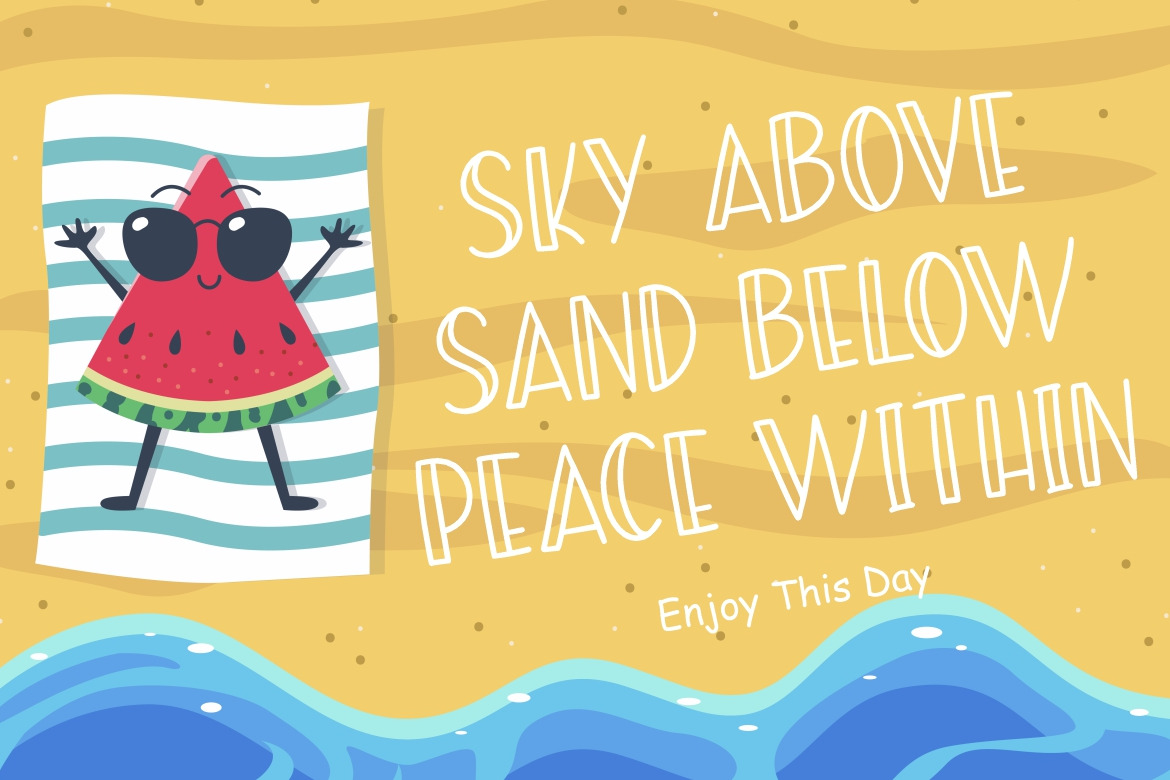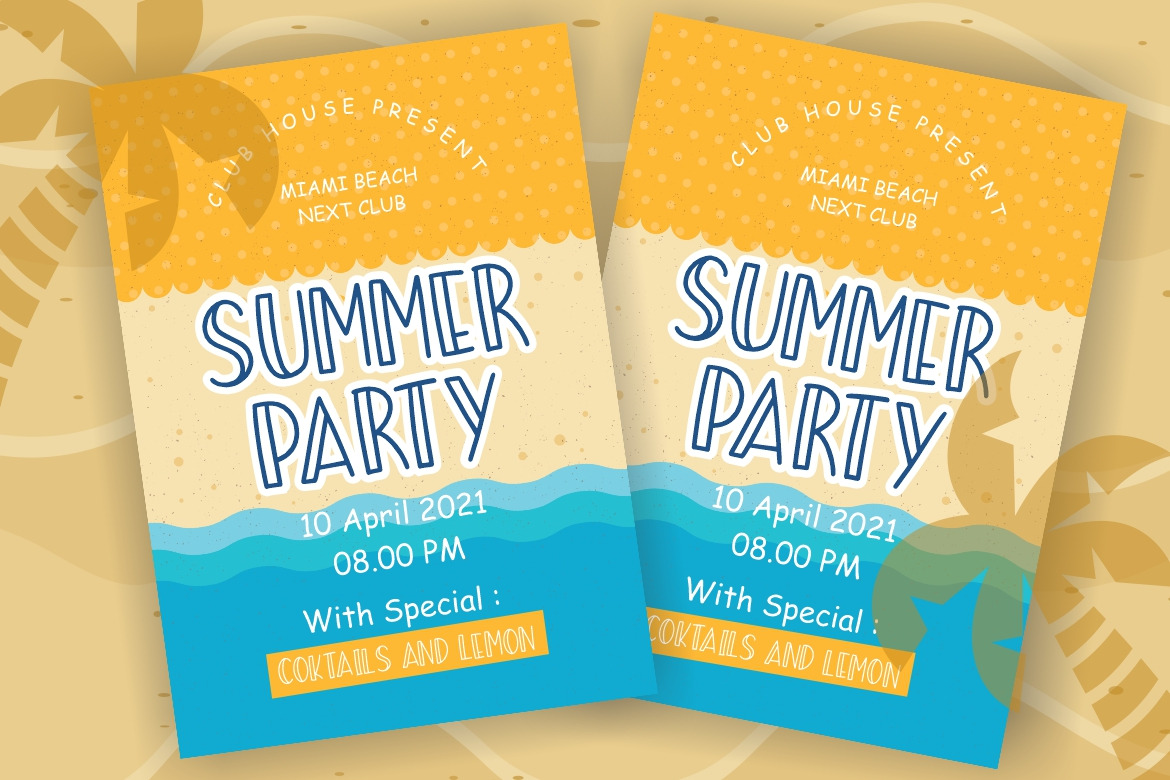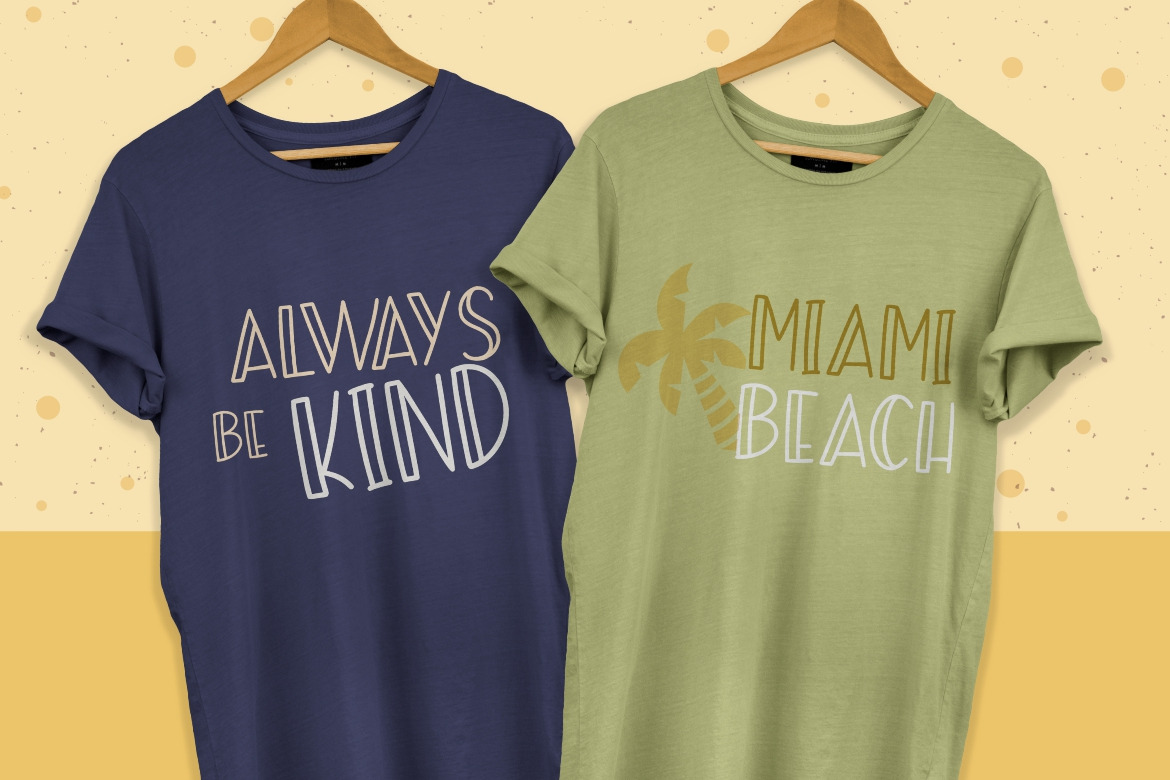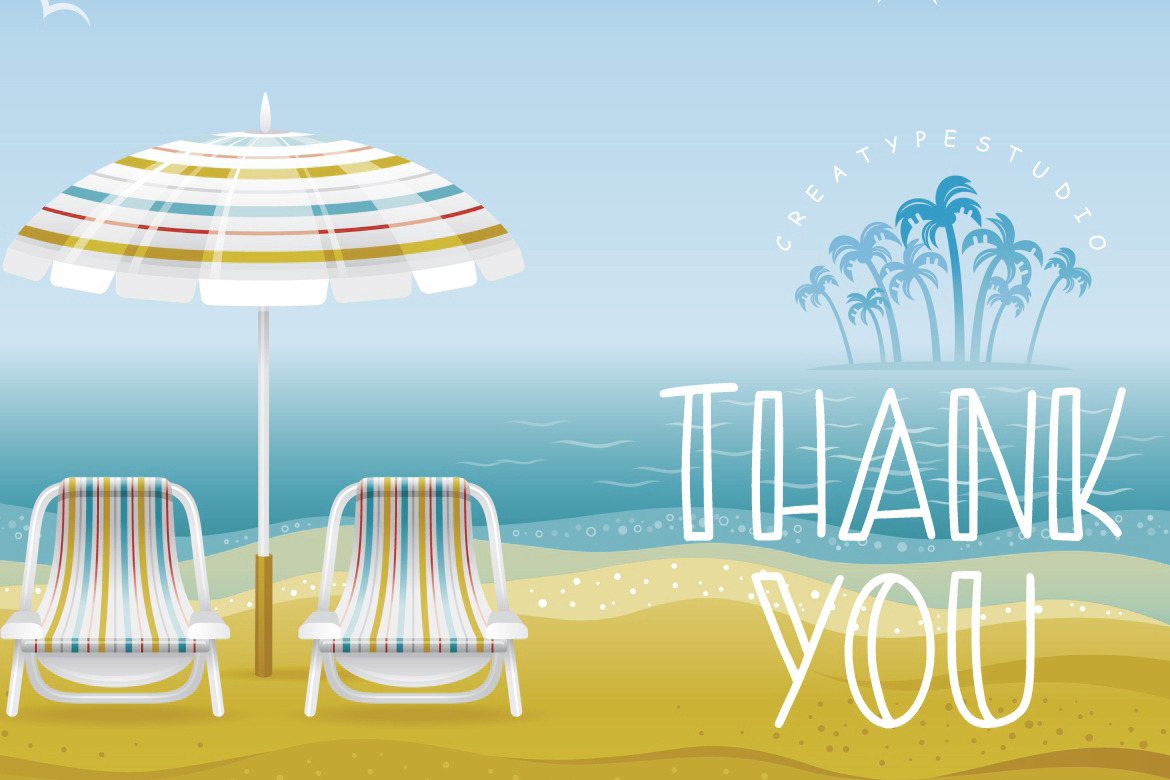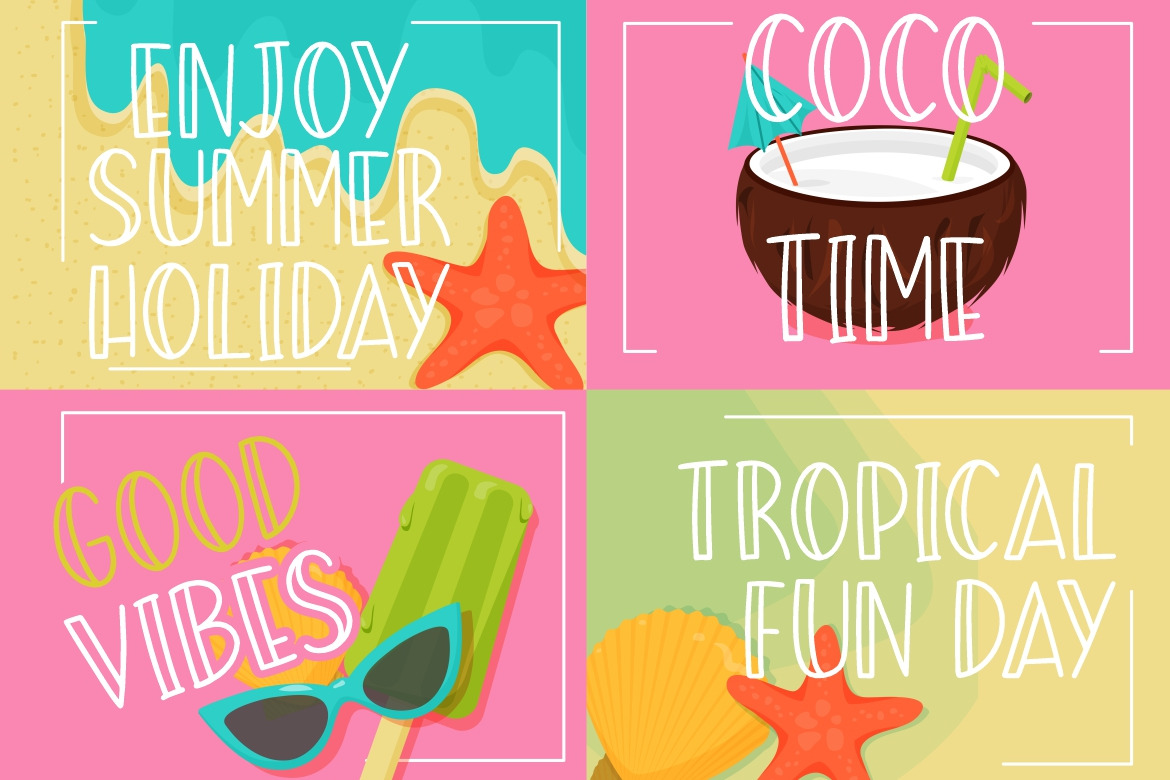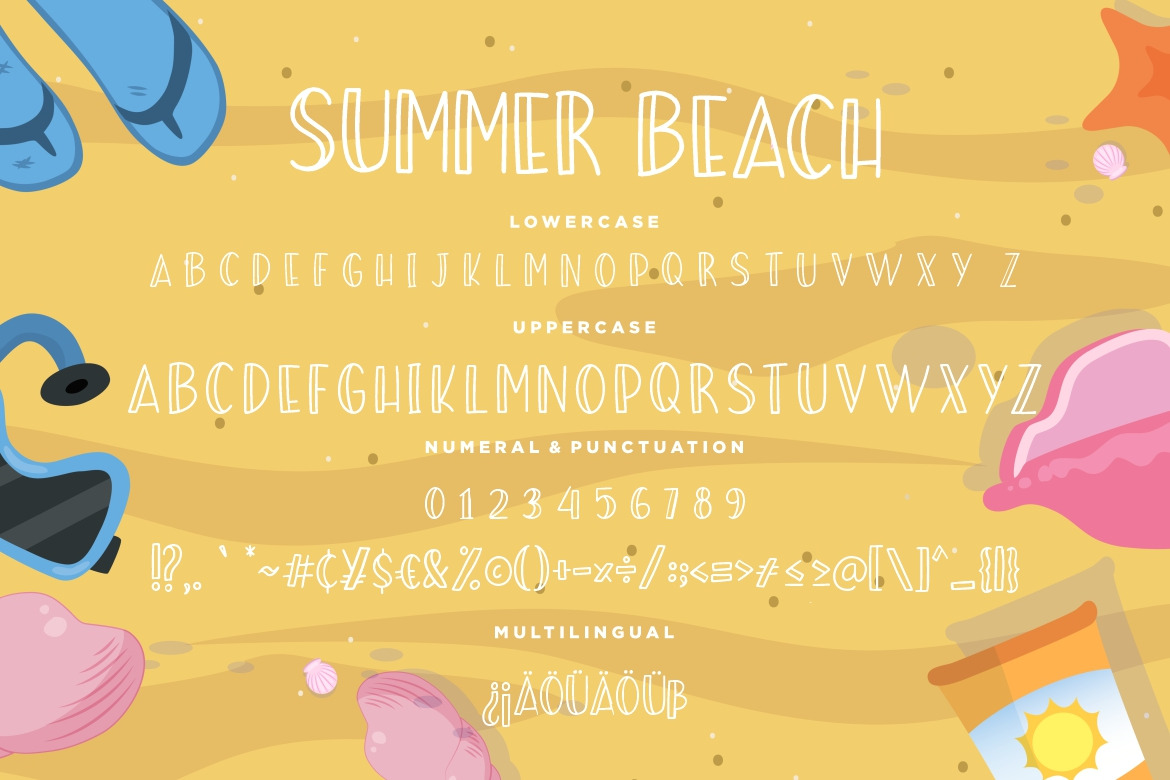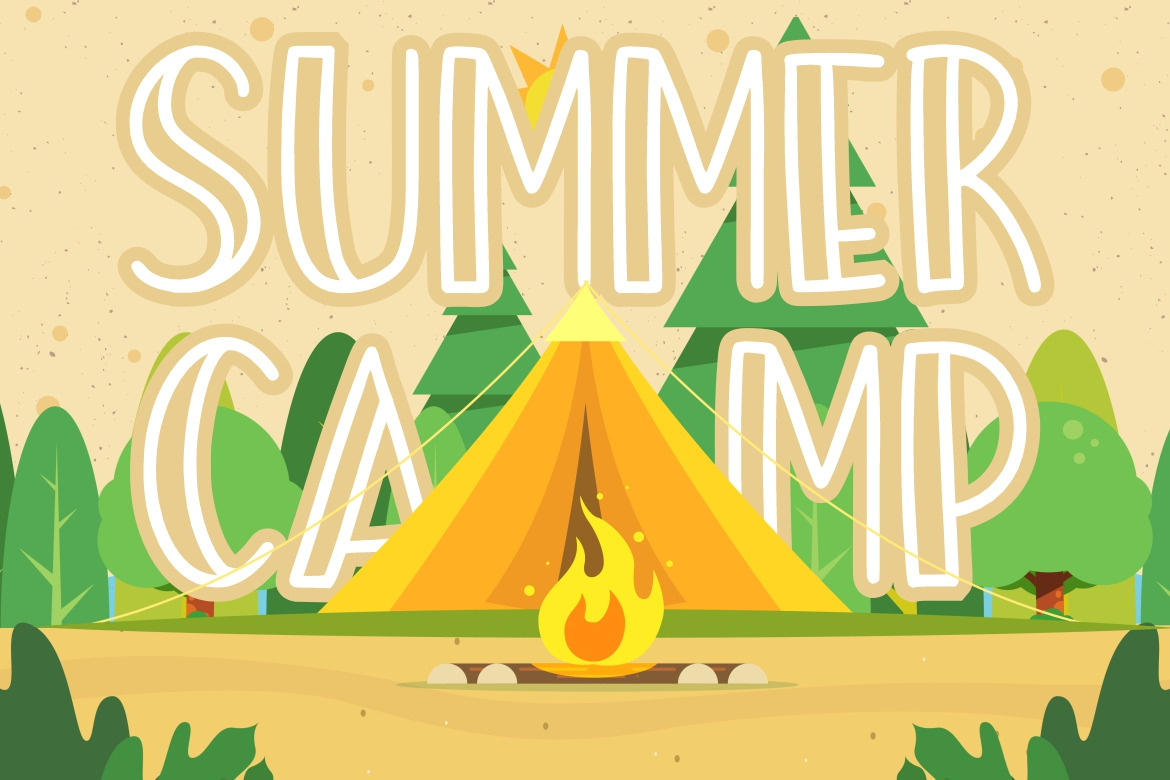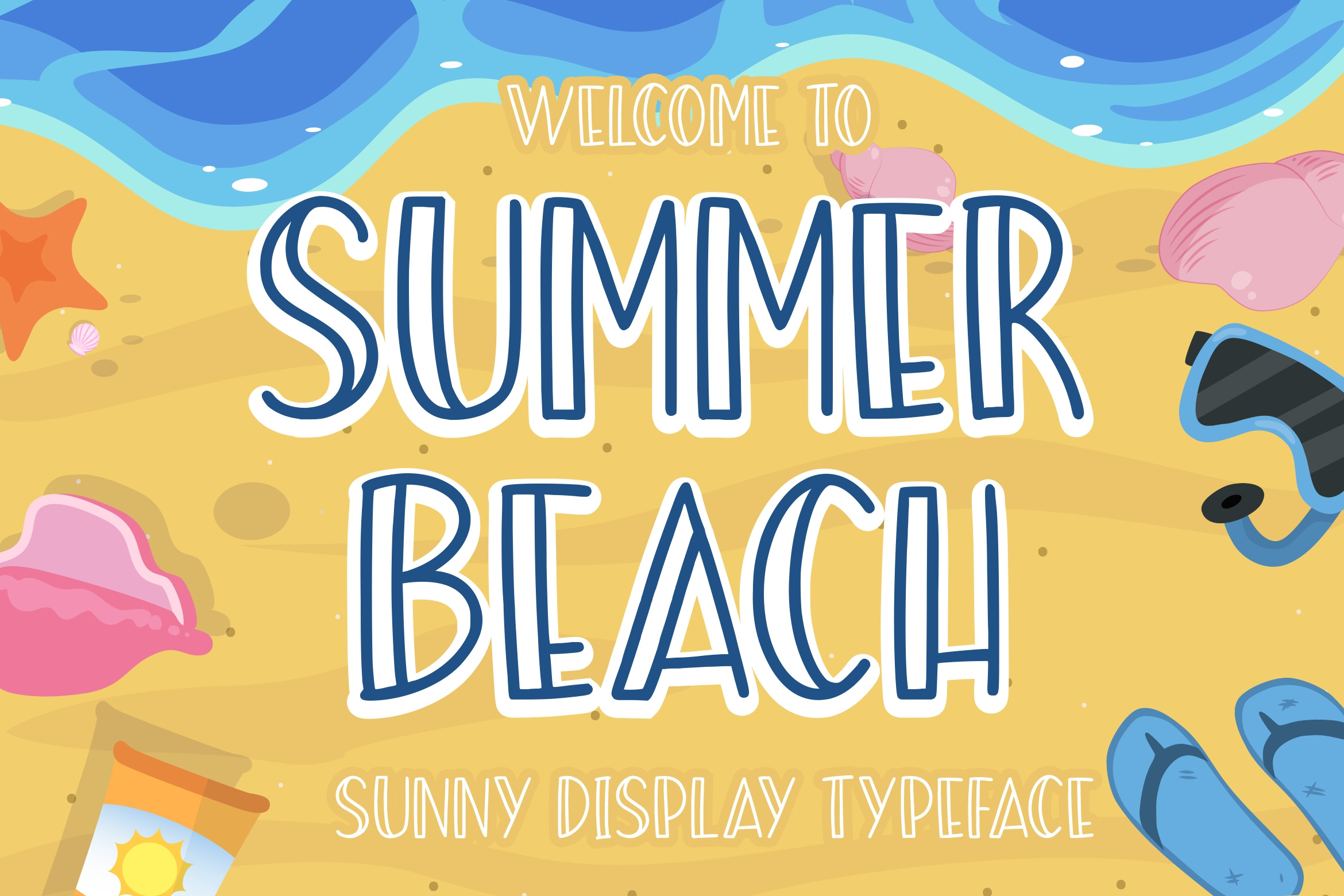
Summer Beach is sunny display font with warm and fun which suitable to use for children related occasion. Summer Beach is perfect for branding projects, logo, wedding designs, social media posts, advertisements, product packaging, product designs, label, photography, watermark, invitation, stationery and any projects that need handwriting taste. What's Included : * Summer Beach (OTF/TTF/WOFF) * Web Fonts * Standard glyphs * Ligature * Works on PC & Mac * Simple installations * Accessible in the Adobe Illustrator, Adobe Photoshop, Adobe InDesign, even work on Microsoft Word. * PUA Encoded Characters - Fully accessible without additional design software. * Fonts include multilingual support for; ä ö ü Ä Ö Ü ß ¿ ¡ Image used : All photographs/pictures/vector used in the preview are not included, they are intended for illustration purpose only. Hope you enjoy with our font! | Summer Beach Sunny Display Typeface | Creatype Studio